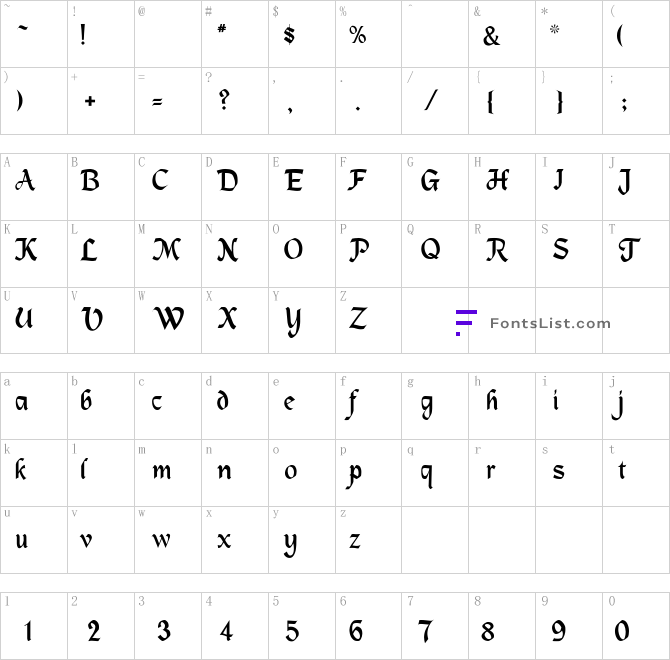
- Font Name:Bailey Light
Bailey-Light-.ttf is a very beautiful artistic font, Bailey-Light-.ttf is widely used in the design and printing of various books and pictures,Bailey-Light-.ttf has a strong visual impact,Bailey-Light-.ttf is a commonly used font in newspapers, magazines and books, and is used in posters, e-commerce Poster design, store design, logo design, font design and other fields.Bailey-Light-.